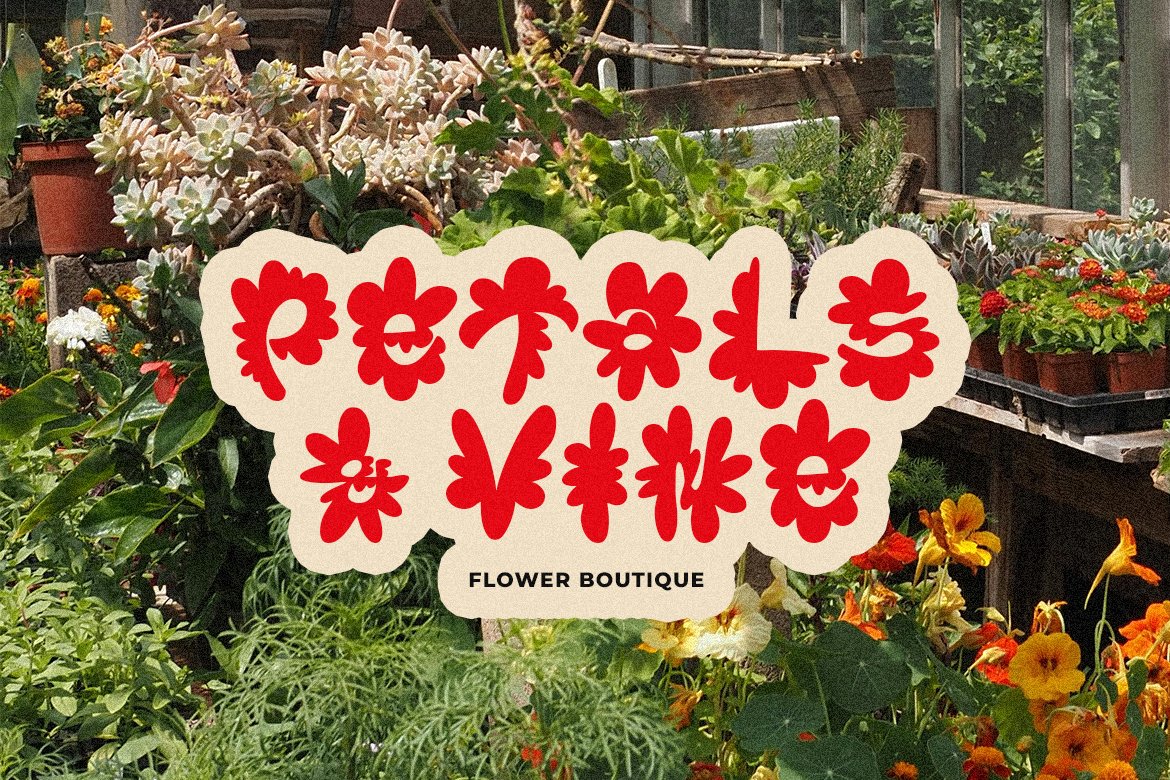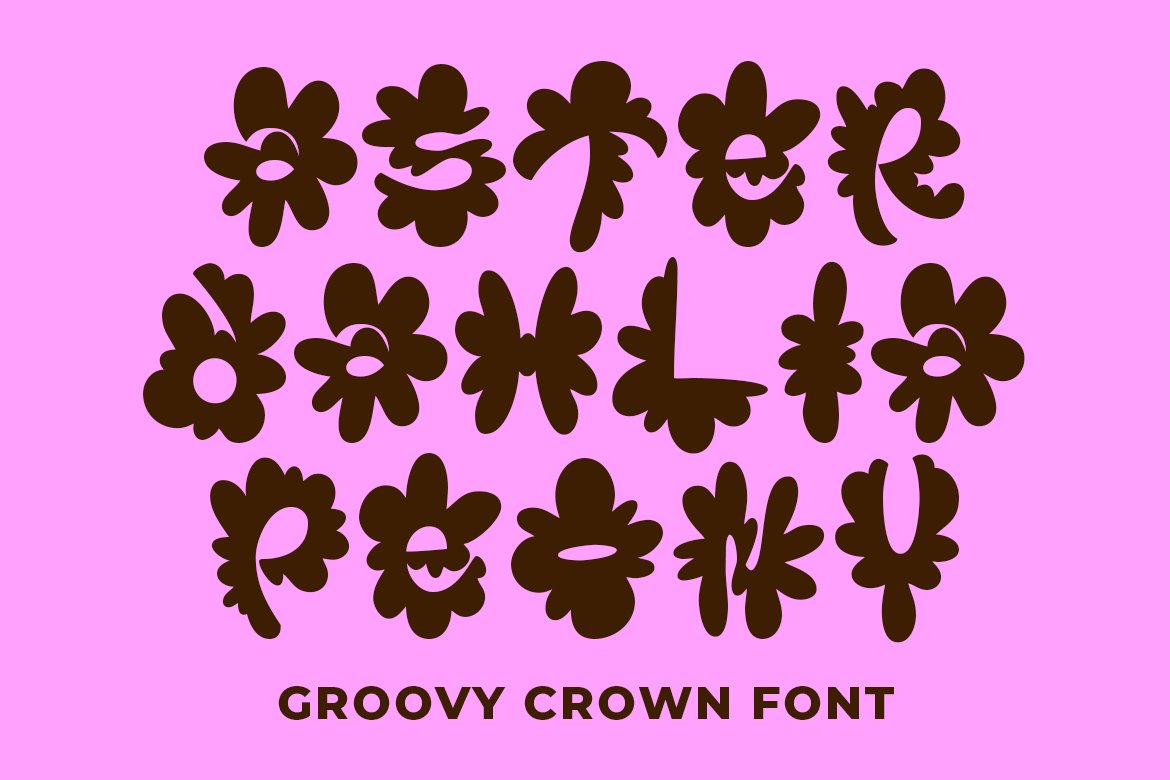
2. Groovy Crown
Groovy Crown Playful Display Font is a unique and whimsical typeface created with hand-drawn sunflowers adorning each letter.
This font exudes a playful and fun vibe, making it perfect for designs that aim to convey a lighthearted and cheerful atmosphere.
The intricate details of the sunflowers add a touch of creativity and charm to this font, making it a standout choice for projects that require a lively and vibrant look.